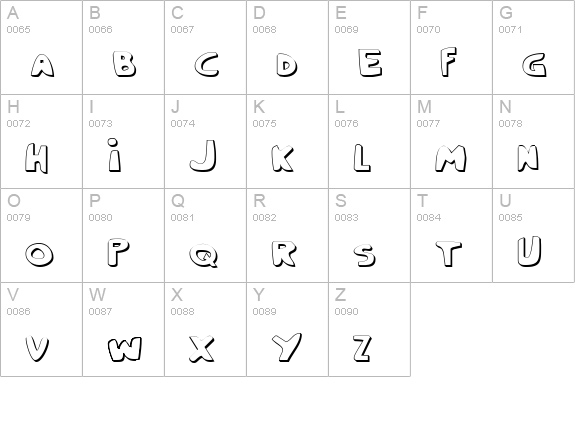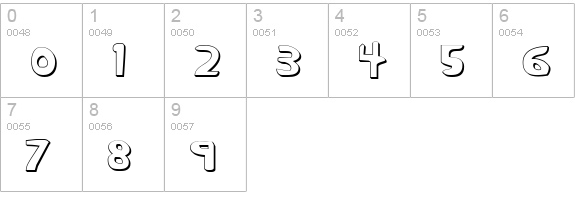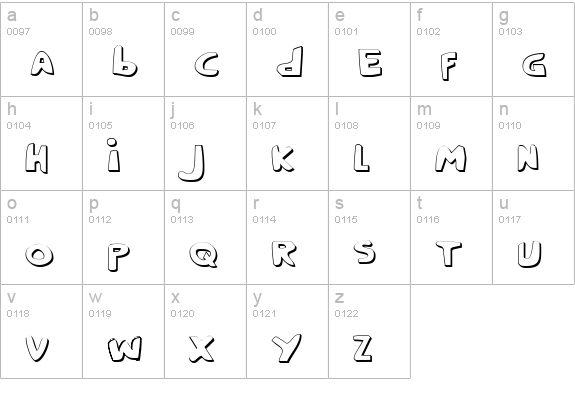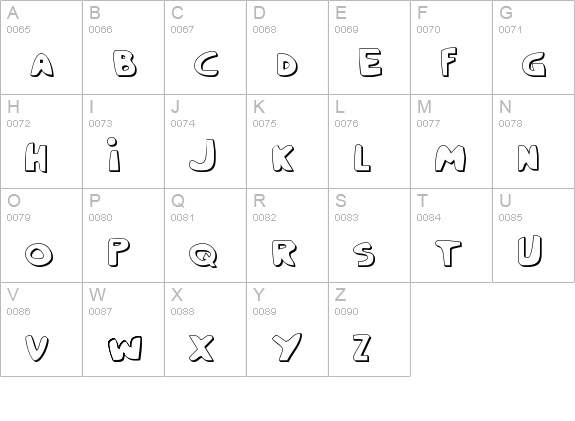
Introducing the vibrant and eye-catching Crappity-Crap-Crap 3D font, a playful and whimsical typeface that is sure to make your designs pop! This unique font features a three-dimensional effect that adds depth and character to any project, making it perfect for posters, flyers, logos, and more. What sets Crappity-Crap-Crap 3D font apart is its bold and exaggerated style, making it stand out from the crowd and grab attention instantly. Whether you're looking to add a touch of fun to your designs or create a bold statement piece, this font is sure to deliver. The best part? Crappity-Crap-Crap 3D font is available for free download at FontsMarket.com! Simply head over to the website to get your hands on this fantastic font and start using it in your projects today. Don't miss out on this opportunity to add a touch of creativity and flair to your designs with the Crappity-Crap-Crap 3D font.